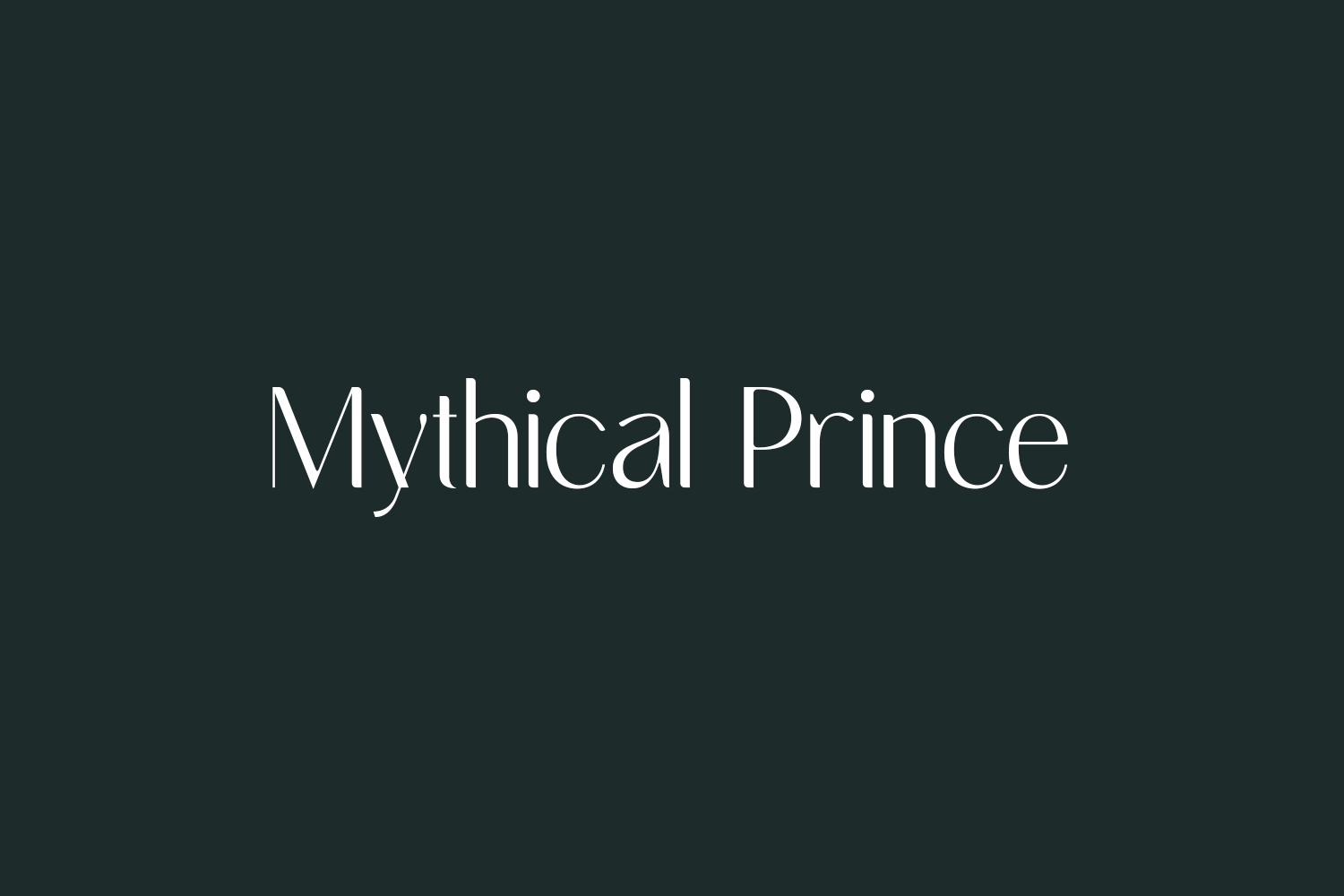
Mythical Prince Free Font is an exquisite and sleek sans serif font crafted with a touch of romance and beauty. This stunning typeface is the perfect choice for a wide range of creative projects, including greeting cards, wedding invitations, posters, logotypes, product branding, and more. With its elegant and versatile design, Mythical Prince adds a touch of sophistication to any visual composition. Let your creativity soar as you incorporate this font into your designs and watch as it brings your ideas to life. Experience the enchantment of Mythical Prince and unlock a world of endless design possibilities. Mythical Prince Free Font is free for personal use only. Please purchase the full version for commercial use.